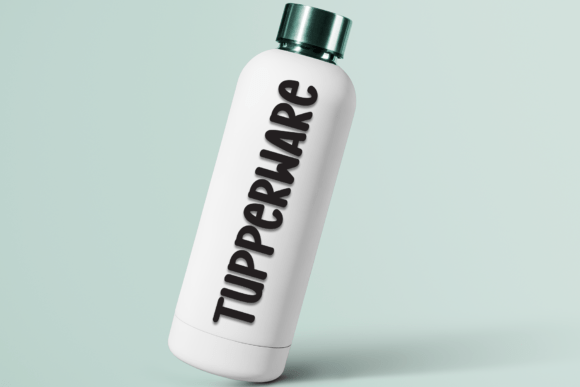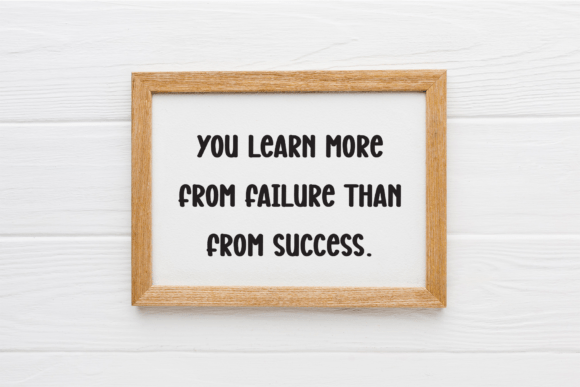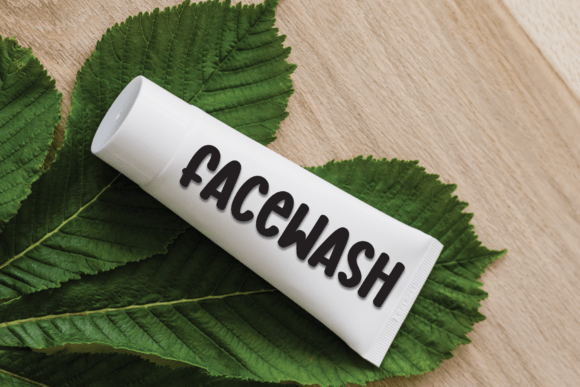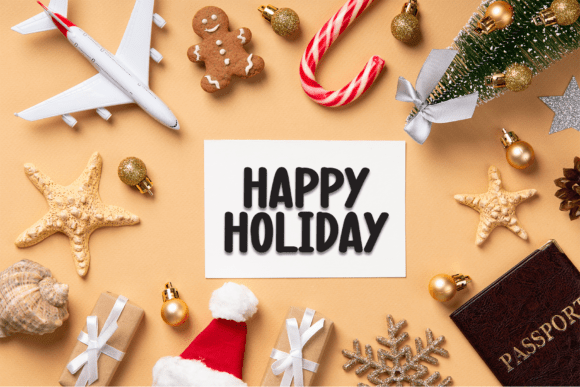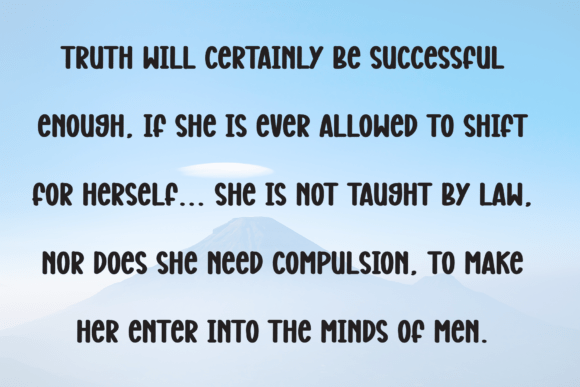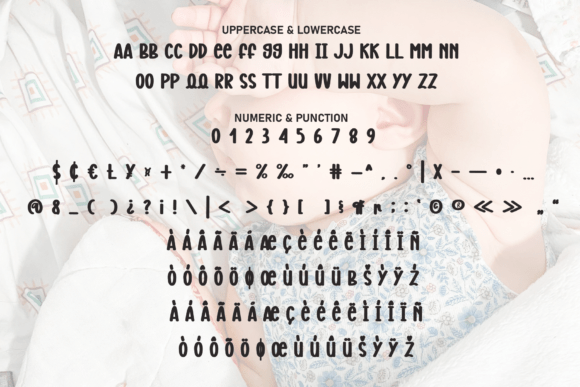
Introducing Chubby Baby Font: The Perfect Blend of Simplicity and Friendliness
In the world of typography, fonts play a crucial role in conveying the tone and personality of a brand or design. For designers and crafters looking for a font that combines simplicity with a friendly, approachable vibe, Chubby Baby Font is an excellent choice. This casual and neat display font is designed to capture the essence of modern handwritten typography with a polished finish, making it ideal for a wide range of design applications.
What Makes Chubby Baby Font Stand Out?
Chubby Baby Font boasts clean lines, balanced letterforms, and subtle rounded edges that give it a unique and charming character. The font’s design is carefully crafted to deliver clarity and charm in equal measure, making it perfect for use in branding, headlines, packaging, and digital content. Whether you’re looking to add a warm and inviting touch to your design or create a bold statement, Chubby Baby Font is an excellent choice.
Key Features of Chubby Baby Font
- Clean Lines: The font features clean lines that give it a crisp and modern look, making it perfect for designs that require a high level of clarity and legibility.
- Balanced Letterforms: The letterforms are carefully balanced to create a sense of harmony and stability, making the font easy to read and understand.
- Subtle Rounded Edges: The subtle rounded edges add a touch of friendliness and approachability to the font, making it perfect for designs that require a warm and inviting tone.
- Versatile Style: The font’s versatile style makes it suitable for a wide range of design applications, from branding and headlines to packaging and digital content.
Why Choose Chubby Baby Font?
There are several reasons why designers and crafters should consider Chubby Baby Font for their design projects. Here are a few:
- Easy to Read: The font’s clean lines and balanced letterforms make it easy to read, even at small sizes.
- Highly Versatile: The font’s versatile style makes it suitable for a wide range of design applications, from print to digital.
- Unique Character: The font’s subtle rounded edges and charming character make it stand out from more traditional fonts.
- Polished Finish: The font’s polished finish gives it a professional look and feel, making it perfect for designs that require a high level of sophistication.
How to Use Chubby Baby Font in Your Design Projects
Chubby Baby Font is a highly versatile font that can be used in a wide range of design applications. Here are a few ideas to get you started:
- Branding: Use Chubby Baby Font to create a warm and inviting brand identity that reflects your company’s values and personality.
- Headlines: Use the font to create bold and eye-catching headlines that grab attention and draw the reader in.
- Packaging: Use Chubby Baby Font to add a touch of personality and charm to your packaging designs.
- Digital Content: Use the font to create engaging and easy-to-read digital content, such as blog posts, social media updates, and email newsletters.
In conclusion, Chubby Baby Font is a highly versatile and charming font that is perfect for designers and crafters looking for a font that combines simplicity with a friendly, approachable vibe. With its clean lines, balanced letterforms, and subtle rounded edges, this font is sure to add a warm and inviting touch to any design. Whether you’re working on a branding project, creating headlines, designing packaging, or developing digital content, Chubby Baby Font is an excellent choice.